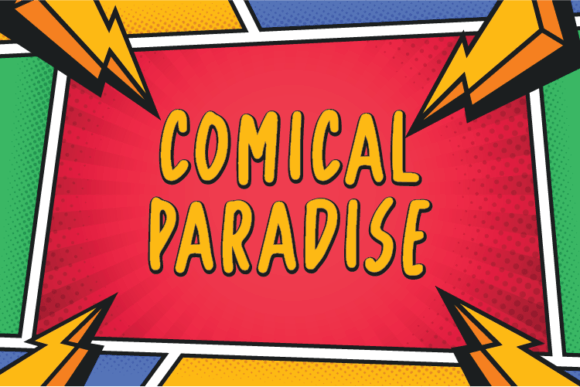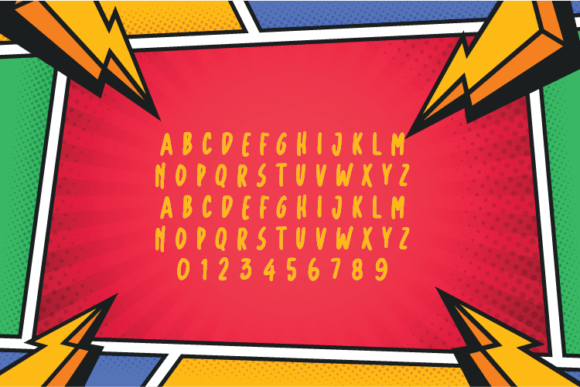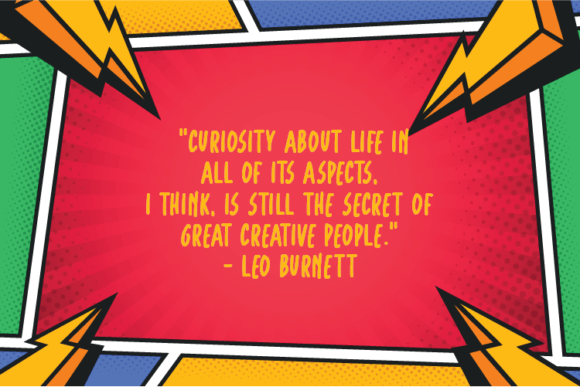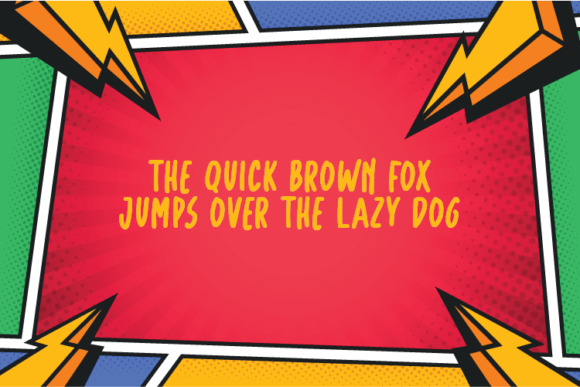
The Perfect Brush Stroke for Your Next Design
Have you ever been brainstorming a creative project, flipping through your sketchbook, and stumbled upon that perfect, quirky handwritten note that just sparks an idea? That’s exactly what happened to the designers who created the Comical Paradise Font.
This charming, natural handwritten font is a breath of fresh air in the world of typography. With its unique, unedited brush strokes, Comical Paradise Font is perfect for adding a touch of personality to quotes, notes, t-shirts, and product designs. For designers, this font is a valuable asset, offering a distinct and authentic look that can elevate any project.
Comical Paradise Font Key Features
- Font Family: Comical Paradise
- Unique Characteristics: The font features a whimsical and playful design, with bold lines and rounded edges, making it perfect for children’s books, comics, and other creative projects.
Designer Review: Comical Paradise Font
I must say, I was quite intrigued by the Comical Paradise Font. Here are my thoughts on what works well and what doesn’t.
- Unique Style: The font has a quirky, playful vibe that’s perfect for projects that need a bit of whimsy.
- Good Legibility: Despite its comical nature, the font is surprisingly easy to read, even at smaller font sizes.
- Customizable: The font offers a range of styles and weights, making it versatile for various design applications.
- Limited Character Set: The font’s character set is somewhat limited, which may cause issues for projects requiring special characters or languages.
- Not Ideal for Body Text: While the font is great for headlines or titles, it’s not the best choice for large blocks of body text due to its quirky nature.
The Comical Paradise Font is a fun, quirky addition to any designer’s toolkit. While it has its limitations, it’s perfect for projects that need a bit of humor and personality. Just be aware of its limitations and use it judiciously to get the most out of it.
Tips for Getting the Most Out of the Comical Paradise Font
1. Use the font for playful and creative designs.
2. Pair the font with bold, bright colors to add visual interest.
3. Experiment with different font sizes and styles to create a unique look.
The Comical Paradise font is ideal for:
1. Social media graphics and ads.
2. Cartoon-style illustrations and animations.
3. Whimsical and playful branding materials.
Alternatives to Comical Paradise Font for Designers
Pacifico is a beautiful, elegant script font that can be used for creating a sophisticated and high-end feel in designs. It’s perfect for headings, titles, and any text that needs a touch of luxury. Pacifico is more refined and elegant compared to Comical Paradise Font, which is more playful and cartoonish.
Great Vibes is a modern, elegant script font that’s ideal for creating a fun and energetic vibe in designs. It’s perfect for headings, titles, and any text that needs a touch of whimsy. Great Vibes is more polished and refined compared to Comical Paradise Font, which is more rough-around-the-edges and playful.
Alex Brush is a beautiful, elegant script font that’s perfect for creating a romantic and whimsical feel in designs. It’s ideal for headings, titles, and any text that needs a touch of softness and warmth. Alex Brush is more delicate and refined compared to Comical Paradise Font, which is more bold and playful.
Dancing Script is a fun, energetic script font that’s perfect for creating a playful and lively vibe in designs. It’s ideal for headings, titles, and any text that needs a touch of movement and energy. Dancing Script is more playful and dynamic compared to Comical Paradise Font, which is more refined and elegant.